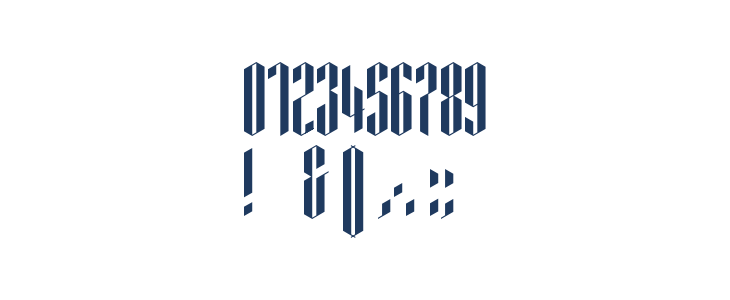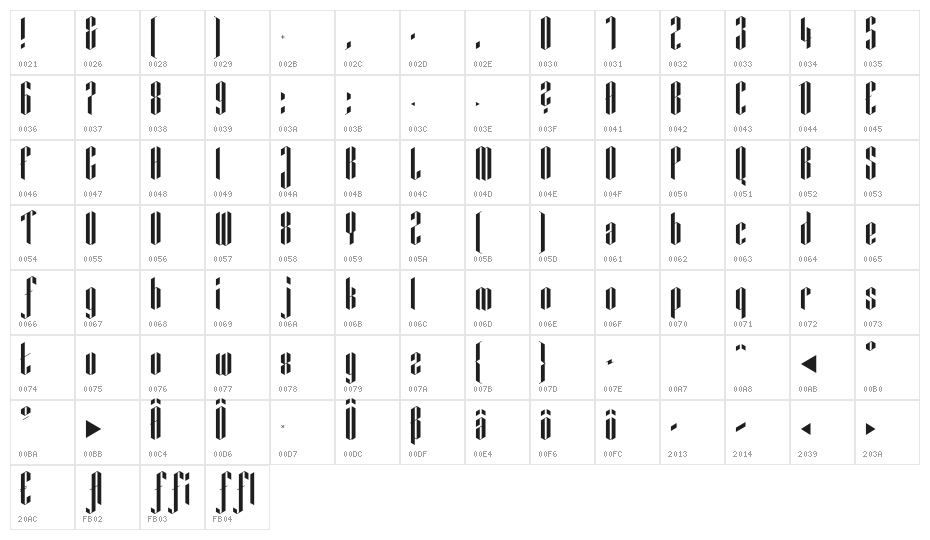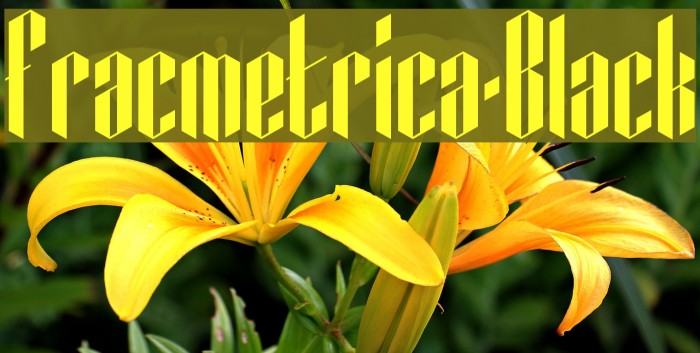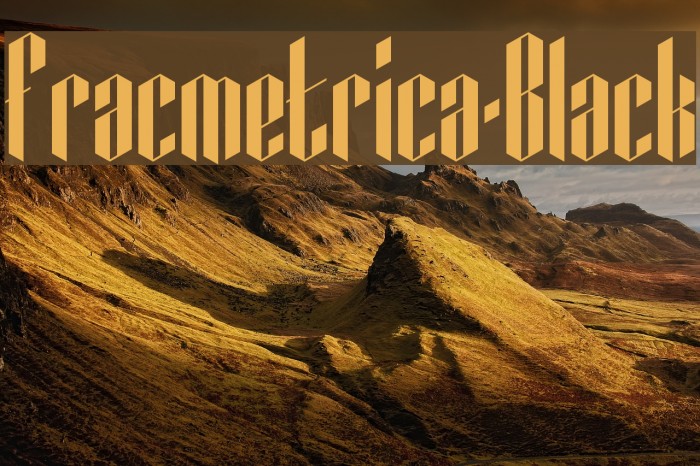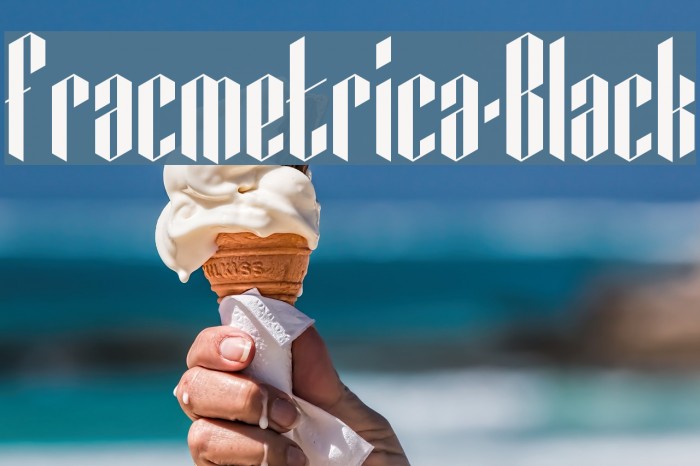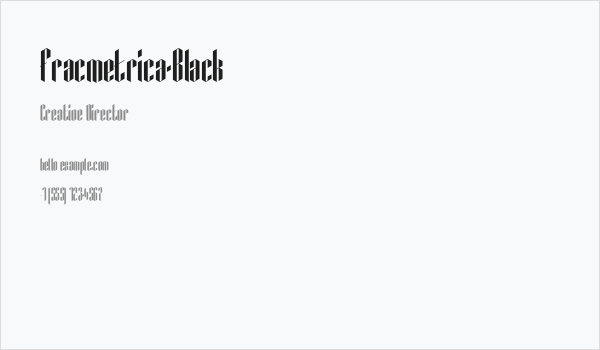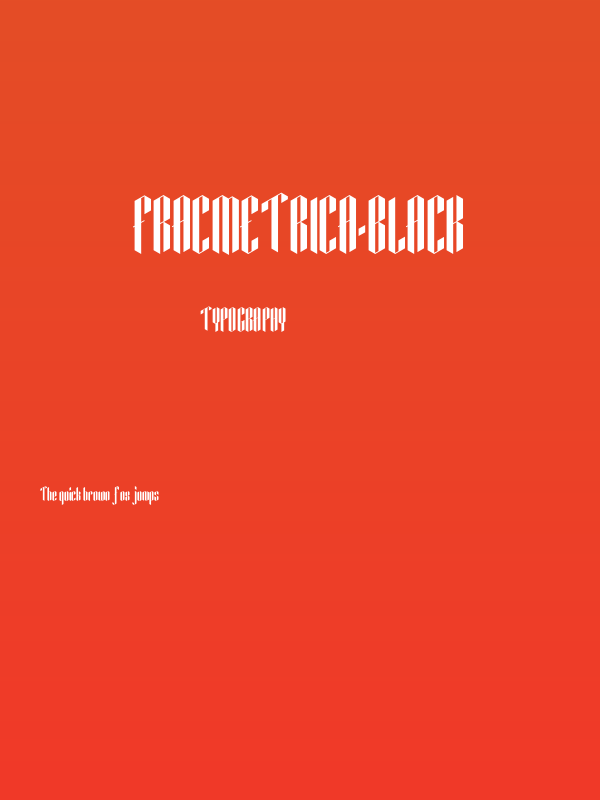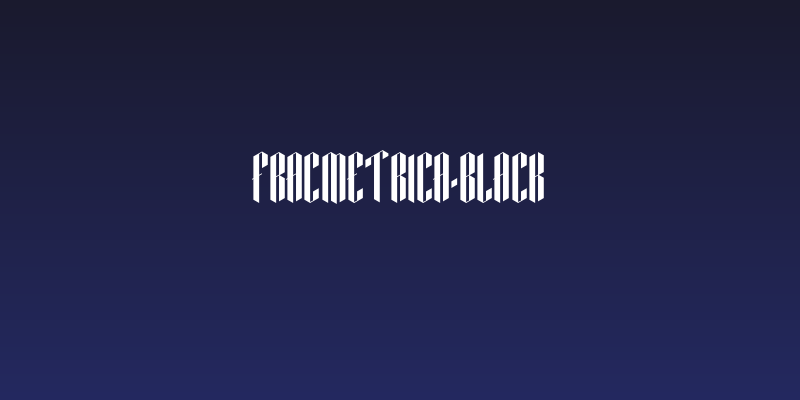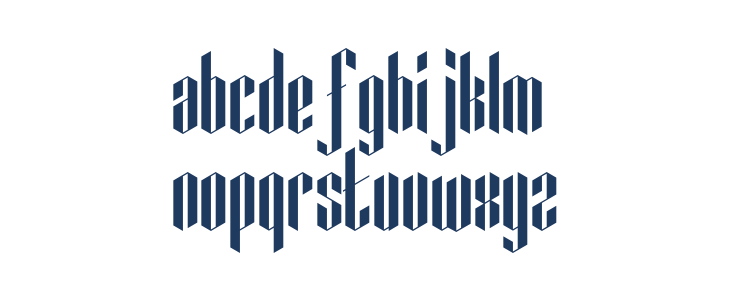
Fracmetrica-Black Font
Fracmetrica-Black Description
This font features a bold, geometric design with a strong vertical emphasis. The characters are tall and narrow, creating a striking and modern appearance. The angular edges and sharp lines give it a futuristic feel, while the consistent stroke width adds to its boldness. The uppercase and lowercase letters maintain a uniform style, enhancing the overall cohesiveness of the font. The numbers and special characters are designed to match the angular and geometric style, ensuring a seamless integration across different uses.
| Proposed Projects | Ideal for futuristic branding, tech-related projects, and modern poster designs. |